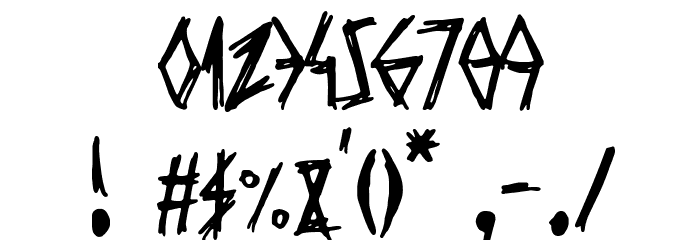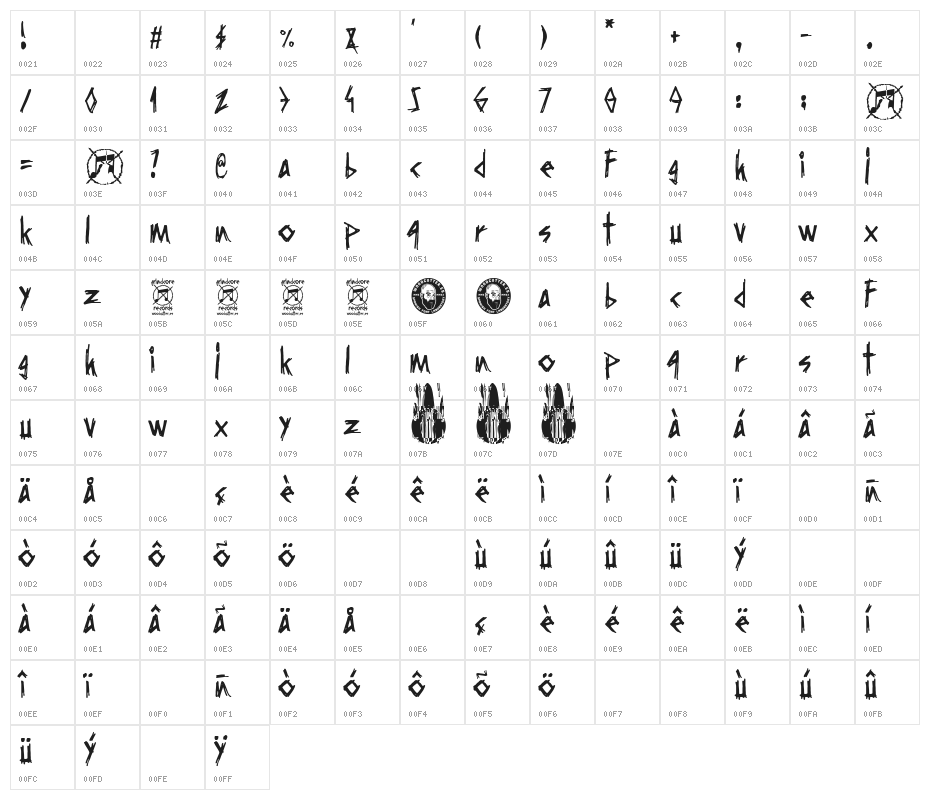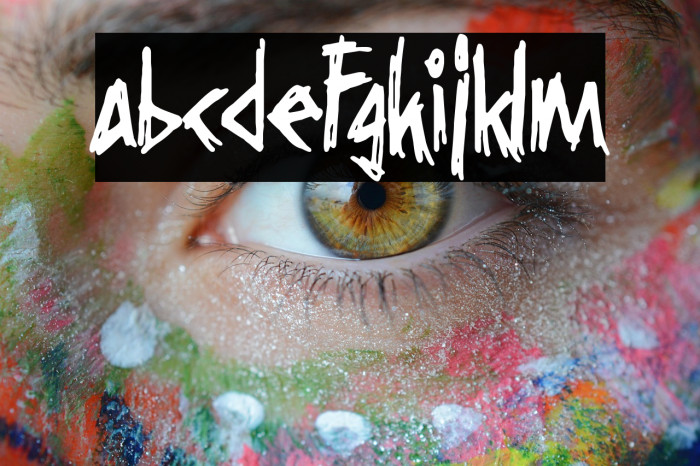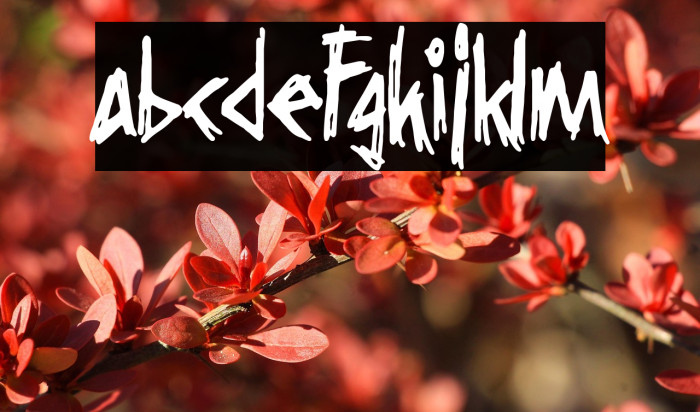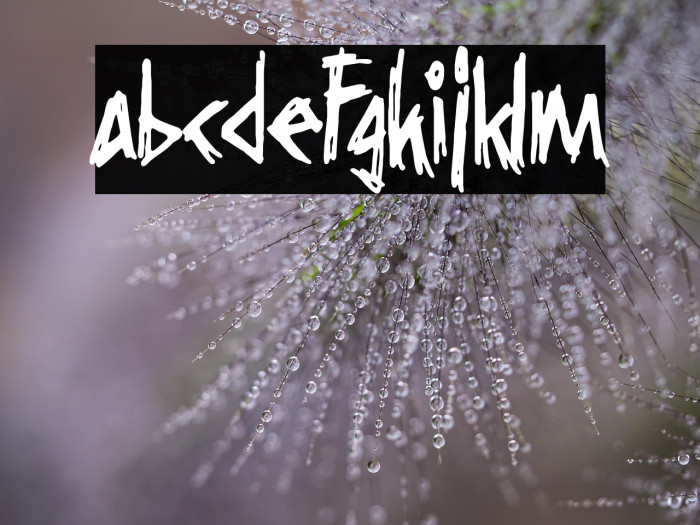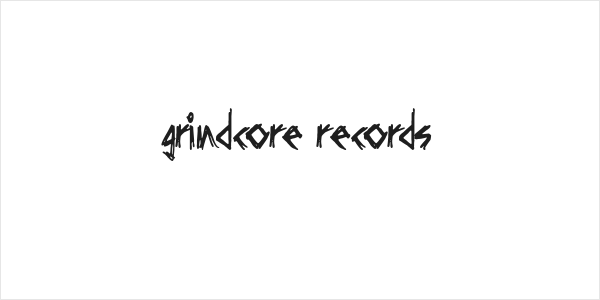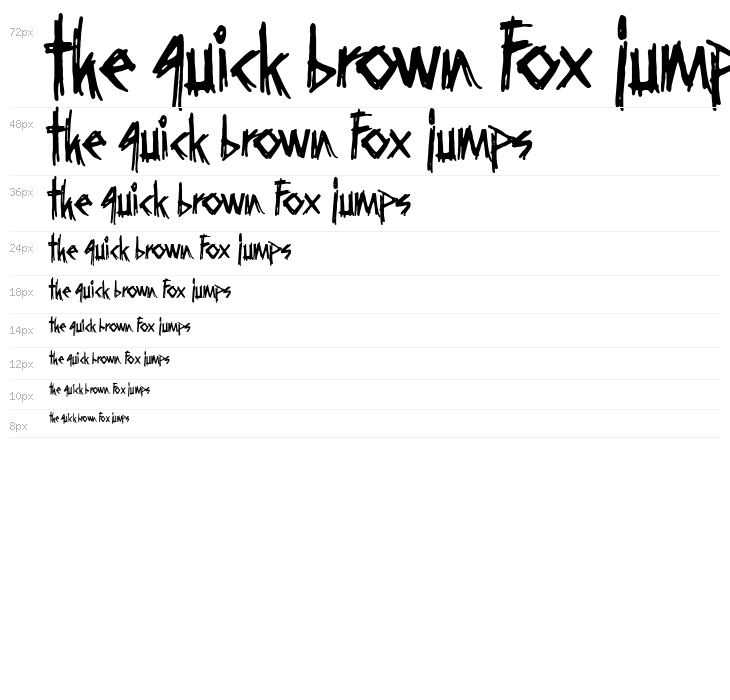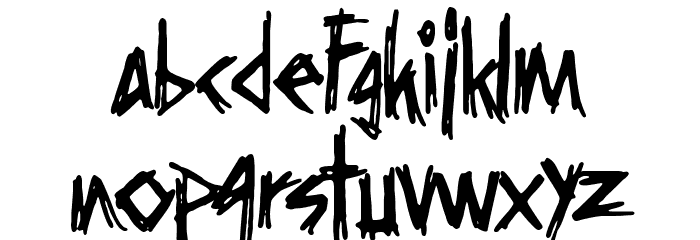
Grindcore Records Font
This font exudes a raw, edgy aesthetic, characterized by its jagged, irregular strokes and dynamic, energetic form. The letters appear hand-drawn, with a chaotic, rebellious flair that suggests movement and intensity. The uppercase and lowercase letters maintain a consistent style, with sharp angles and uneven lines that create a sense of urgency and power. Numbers and special characters follow the same design ethos, adding to the font's cohesive yet anarchic feel. This font is ideal for projects that require a bold, unconventional look, capturing attention with its striking and distinctive appearance.
| Overall Style | Modern, Edgy |
| Proposed Projects | Album covers, band posters, extreme sports branding, edgy apparel design. |